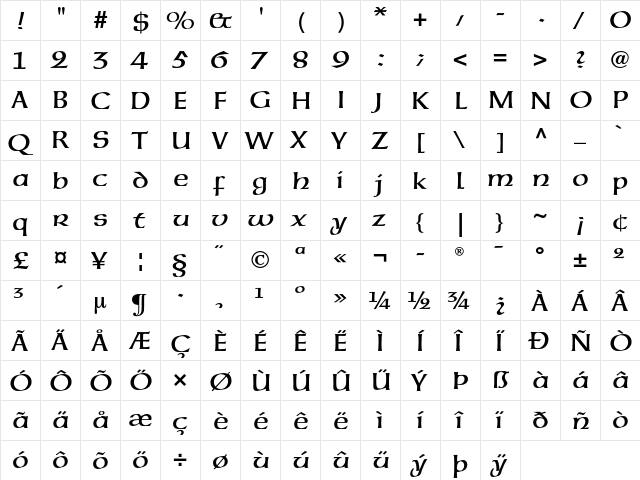
Neue Hammer Unziale 1
Design Context for Neue Hammer Unziale Typeface
Neue Hammer Unziale is a composed and adaptable typeface that performs quietly and consistently across a wide range of design contexts.